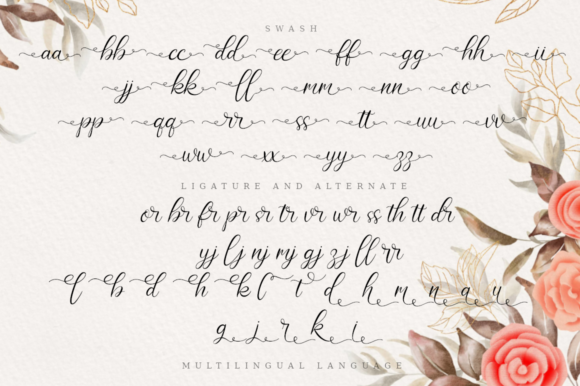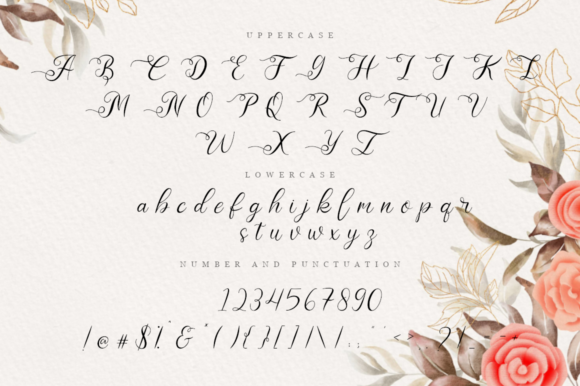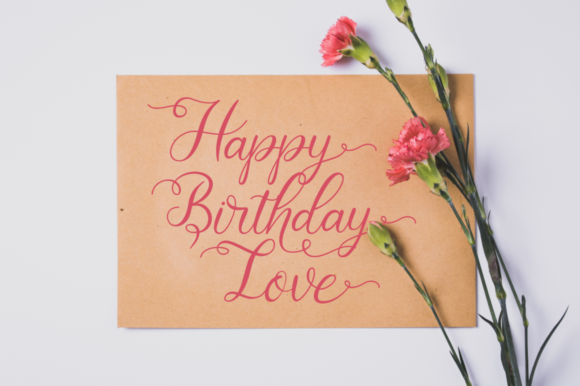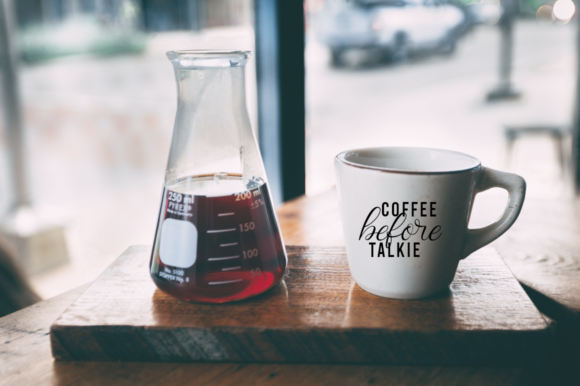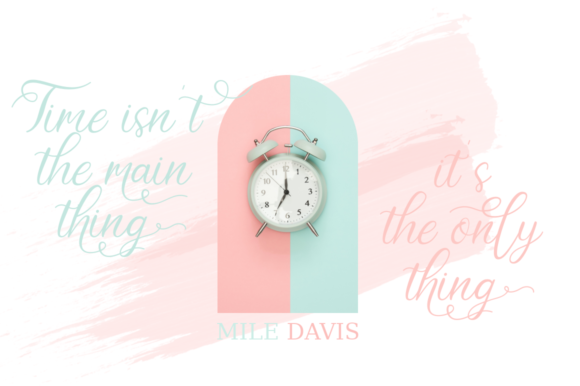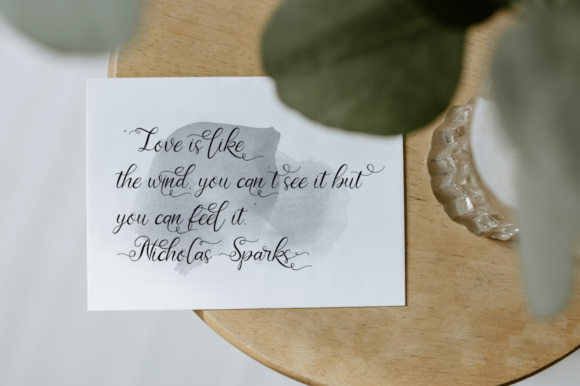
Introducing Antasia Font: Elevate Your Designs with Luxury and Elegance
Are you tired of using the same old fonts in your design projects? Look no further than Antasia Font, a beautiful light handwritten font that is sure to add a touch of luxury and sophistication to any design. With its unique feel and stunning impact, Antasia Font is the perfect choice for designers and crafters looking to elevate their work.
What Makes Antasia Font So Special?
Antasia Font is a one-of-a-kind font that boasts a distinctive and elegant style. Its light handwritten feel gives it a personal and approachable touch, making it perfect for designs that require a human touch. Whether you’re working on a branding project, a wedding invitation, or a packaging design, Antasia Font is sure to make your work stand out.
The Power of PUA Encoding
One of the standout features of Antasia Font is its PUA (Private Use Area) encoding. This means that you can access all of the amazing glyphs and ligatures with ease, giving you unparalleled creative control over your designs. With PUA encoding, you can effortlessly add flourishes and swashes to your text, making it truly unique and eye-catching.
Antasia Font is incredibly versatile, making it suitable for a wide range of design projects. Here are just a few ideas to get you started:
- Branding and logos: Use Antasia Font to create a luxurious and sophisticated brand identity that will leave a lasting impression on your customers.
- Wedding invitations and stationery: Add a touch of elegance and romance to your wedding designs with Antasia Font’s beautiful handwritten feel.
- Packaging design: Make your product packaging stand out on store shelves with Antasia Font’s unique and eye-catching style.
- Social media graphics: Use Antasia Font to create stunning social media graphics that will help you connect with your audience and build your brand.
Why Choose Antasia Font?
With so many fonts to choose from, why should you choose Antasia Font? Here are just a few reasons:
- Unique and exclusive: Antasia Font is a one-of-a-kind font that will help you stand out from the crowd.
- Elegant and sophisticated: Antasia Font’s light handwritten feel gives it a luxurious and refined aesthetic.
- Easy to use: With PUA encoding, you can access all of the amazing glyphs and ligatures with ease.
- Versatile: Antasia Font is suitable for a wide range of design projects, from branding and logos to wedding invitations and packaging design.
If you’re looking for a font that will take your designs to the next level, look no further than Antasia Font. With its unique feel, stunning impact, and PUA encoding, Antasia Font is the perfect choice for designers and crafters who want to create something truly special. So why wait? Download Antasia Font today and get ready to elevate your designs with luxury and elegance.
In conclusion, Antasia Font is a beautiful and elegant font that is sure to add a touch of luxury and sophistication to any design project. With its unique feel, stunning impact, and PUA encoding, Antasia Font is the perfect choice for designers and crafters who want to create something truly special. Whether you’re working on a branding project, a wedding invitation, or a packaging design, Antasia Font is sure to make your work stand out.